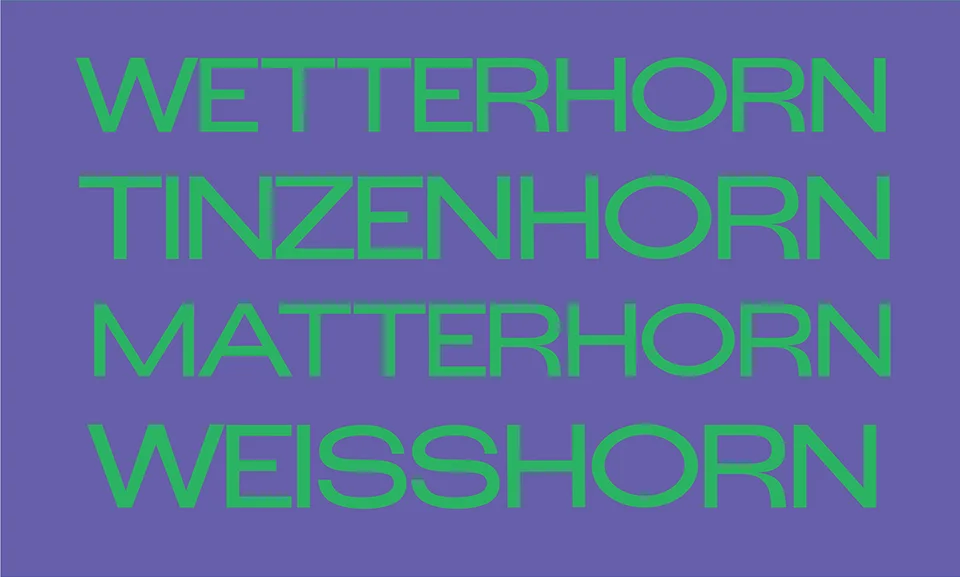
Konstant Grotesk Font
Introducing Konstant Grotesk Font, a free display typeface by Stephen French. This font includes a complete set of uppercase and lowercase characters, numbers, and punctuation. Perfect for modern headlines and titles.